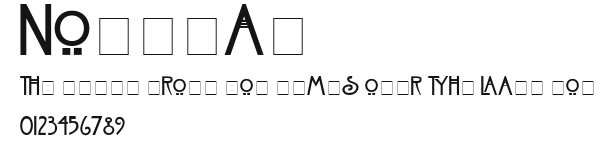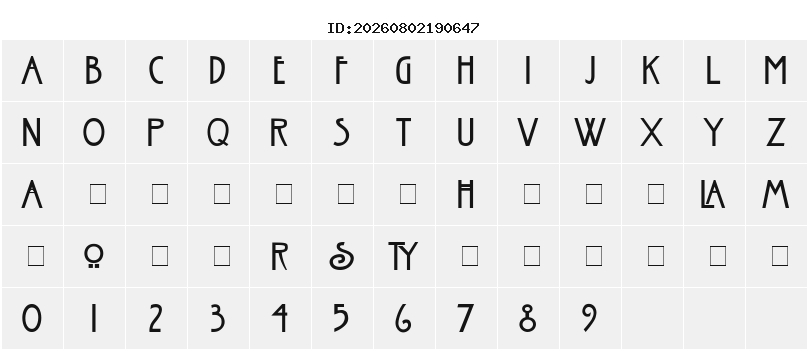
• Copyright: Nouveau. Copyright by Alan J. Cairns. Based on Designs of Charles Rennie Mackintosh.
About Nouveau.ttf
Nouveau.ttf is a modern, elegant sans-serif font designed for ultimate readability and visual harmony. Perfect for branding, headlines, web design, and print materials.